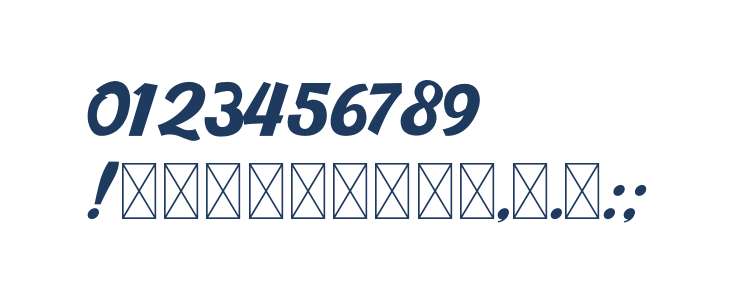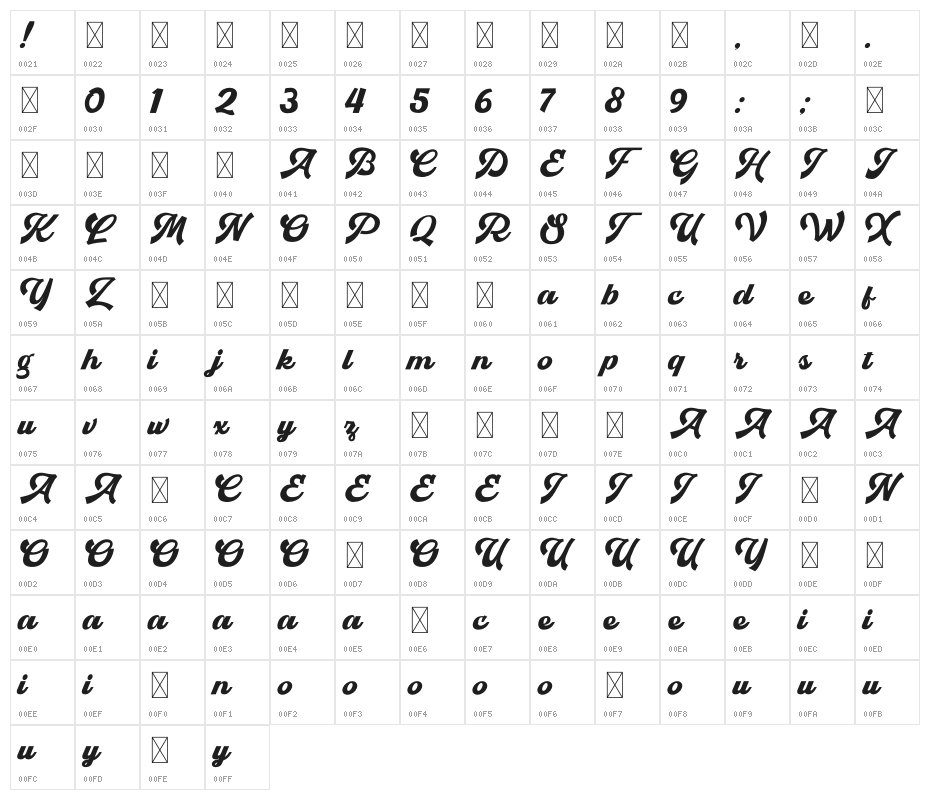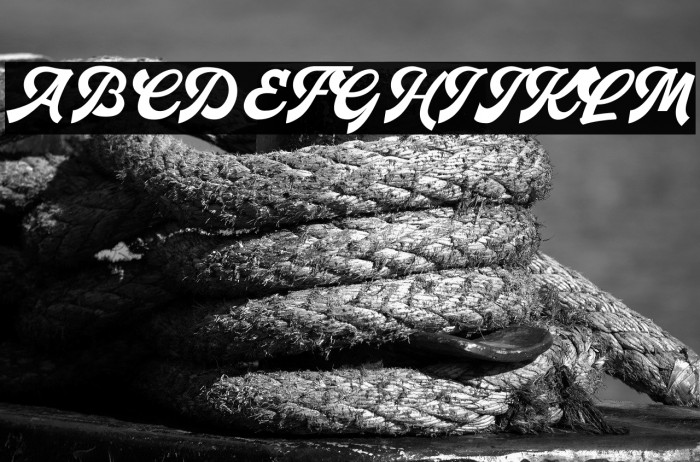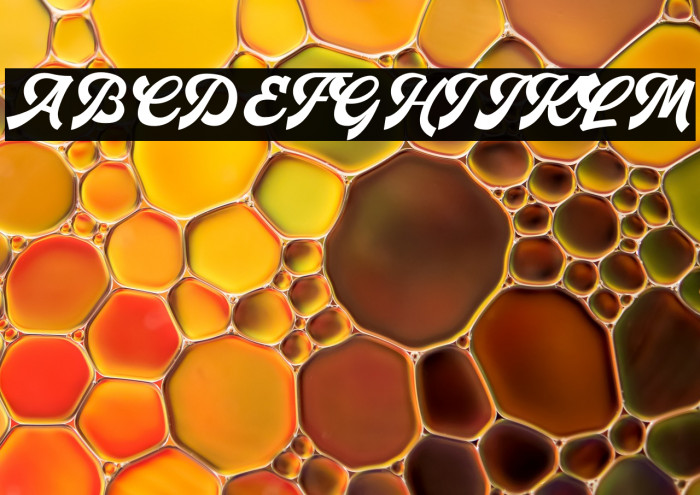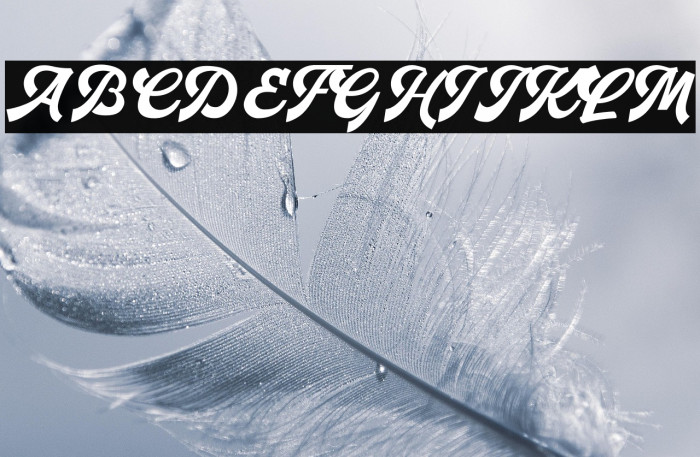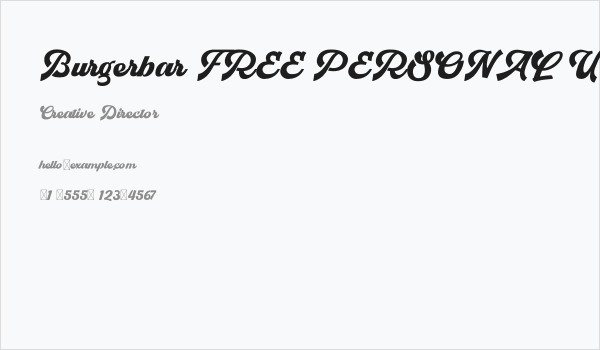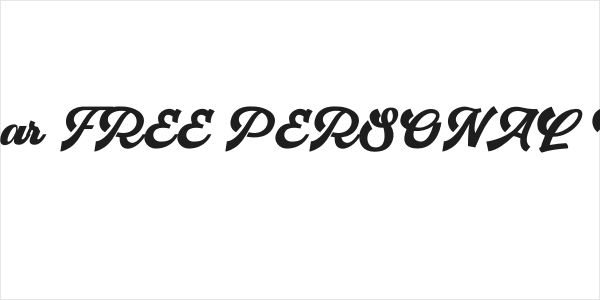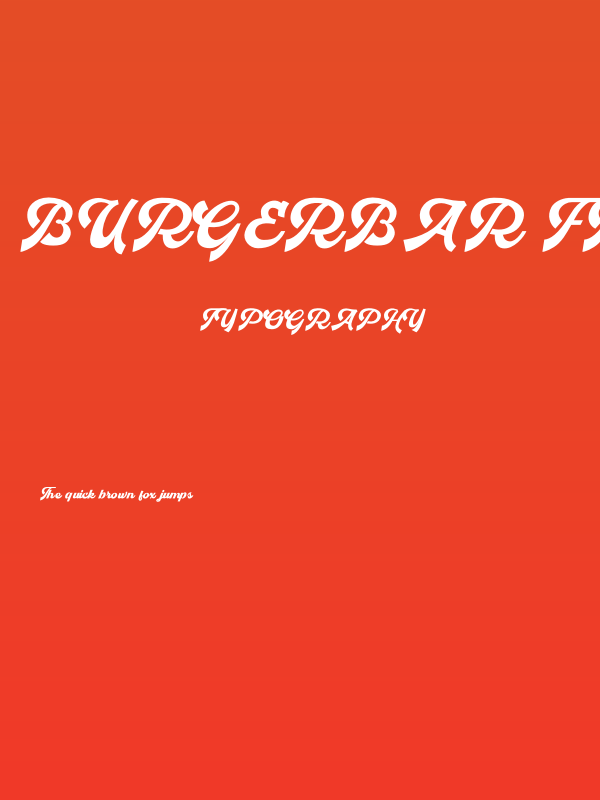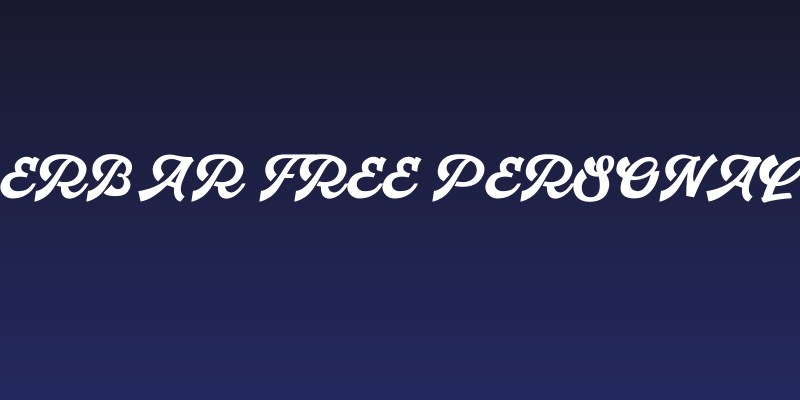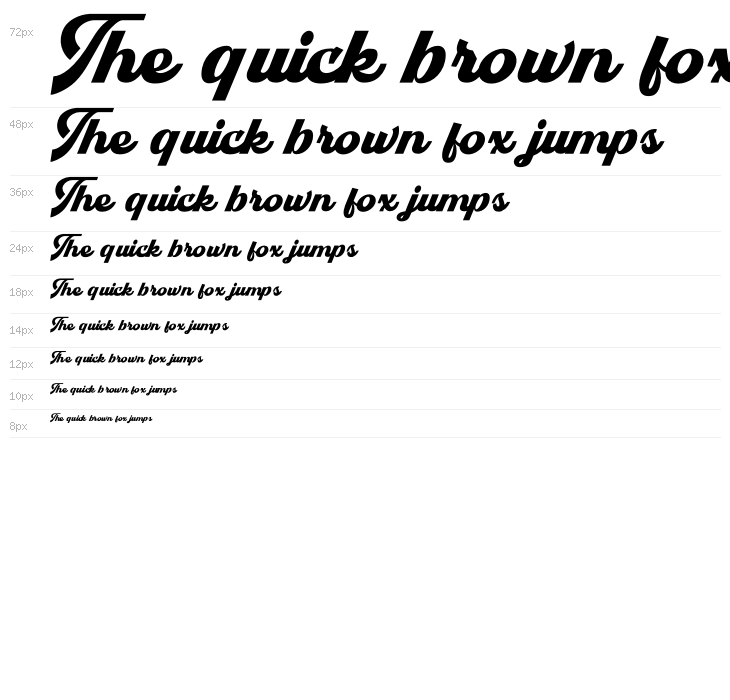
Burgerbar FREE PERSONAL USED Font
Burgerbar FREE PERSONAL USED Description
This font features a bold and dynamic script style with a strong presence. The uppercase letters are characterized by their sweeping curves and dramatic slants, giving them a sense of movement and flair. The lowercase letters maintain a consistent flow, complementing the uppercase with their rounded forms and smooth connections. The numerals are equally bold, ensuring readability while maintaining the overall aesthetic. The font's style is both modern and decorative, making it suitable for eye-catching designs. The character spacing is tight, enhancing the cohesive look of the text.
| Proposed Projects | Ideal for branding, logos, headlines, and posters where a strong visual impact is desired. |